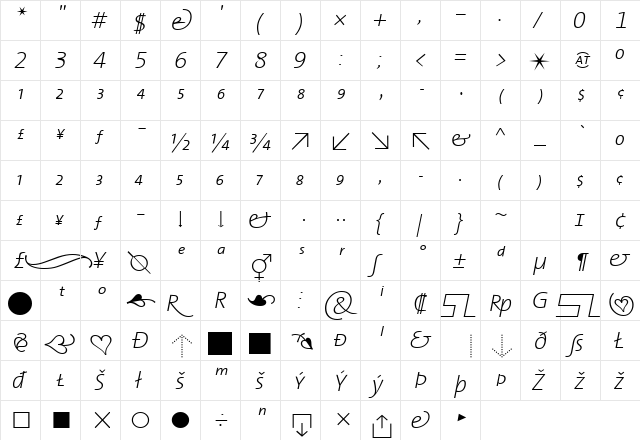
TheSanExtLigExpIta Regular Font Preview
TheSanExtLigExpIta Regular
Design Context for TheSanExtLigExpIta Typeface
TheSanExtLigExpIta offers clean, dependable letterforms without strong stylistic allegiance, making it a practical choice for designers who need flexibility.